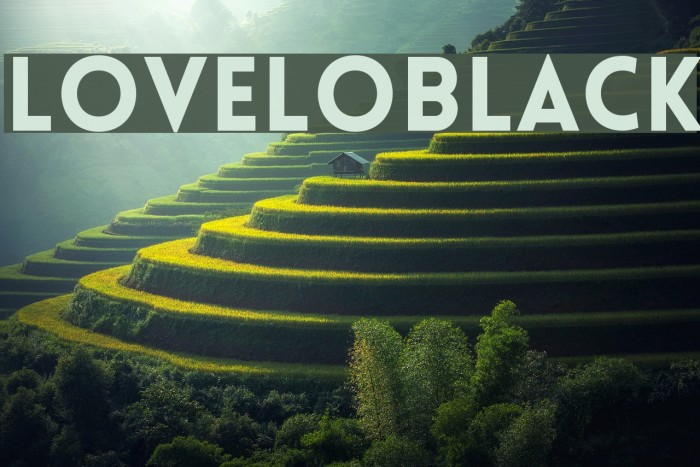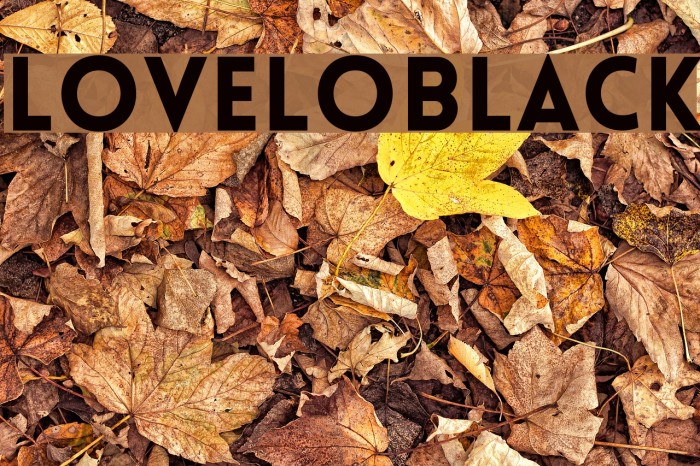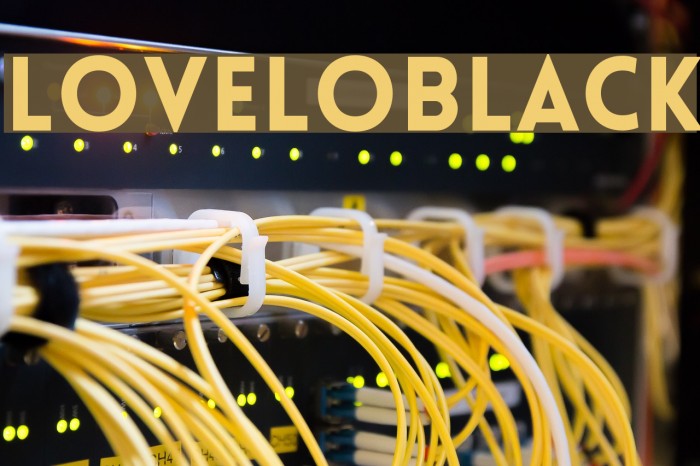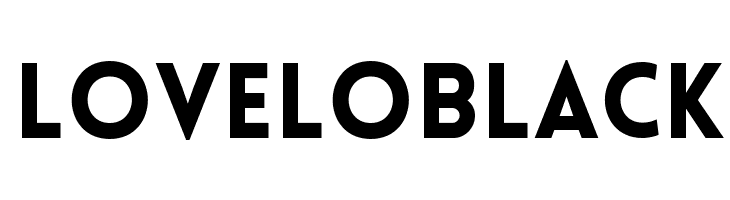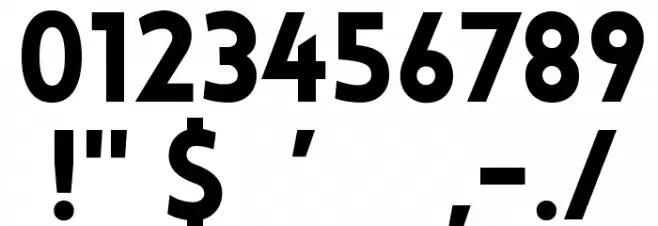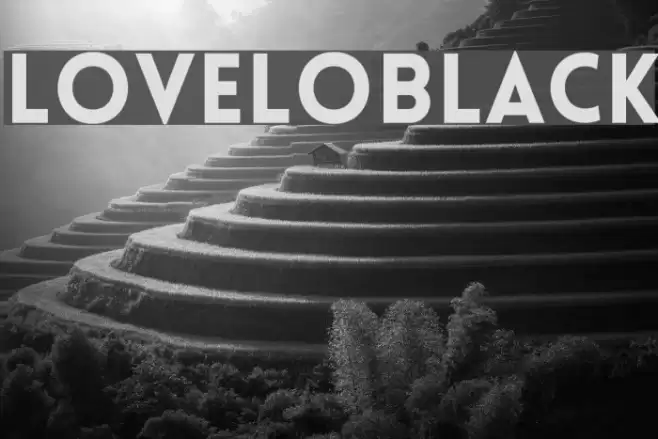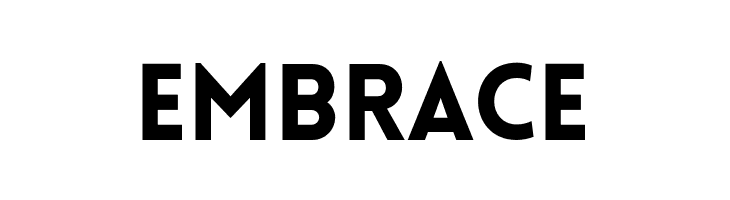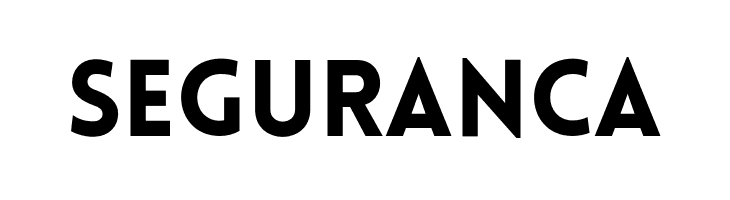
LoveloBlack Font
This font exhibits a bold and modern aesthetic with clean, geometric lines and a strong presence. The uppercase letters are uniform in height, creating a cohesive and balanced look. The lowercase letters maintain the same boldness, ensuring readability and impact. The numbers are consistent with the overall style, featuring the same thickness and geometric precision. Special characters are designed to complement the alphabet, maintaining the font's bold and modern characteristics. This font is ideal for projects that require a strong visual impact, such as branding, advertising, and headlines.
A bold, modern font with geometric lines and strong visual impact.
- Proposed Projects: Ideal for branding, advertising, headlines, and any project requiring a strong, modern aesthetic.
- Use Case: Headlines, Logos, Branding